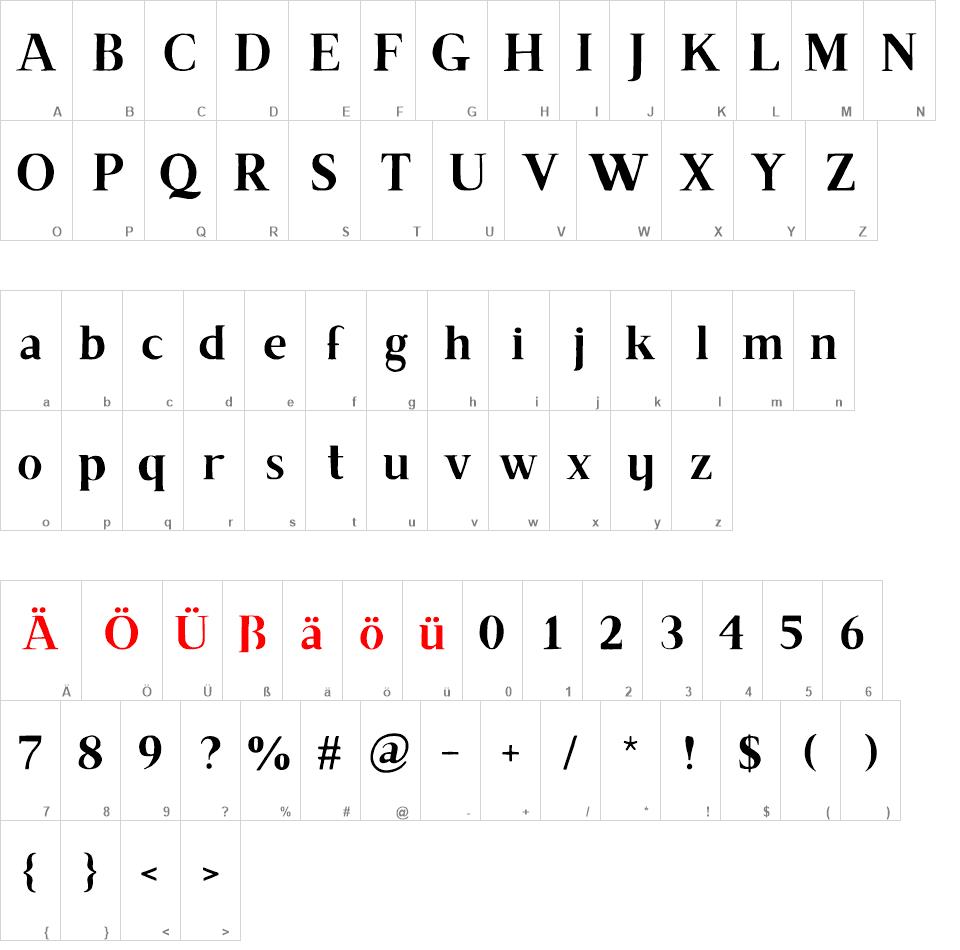
Brixton TC
Introducing Brixton, a handcrafted font family with a unique and timeless personality. A great display font that thrives within posters, vintage logo design, label design, packaging, clothing etc.